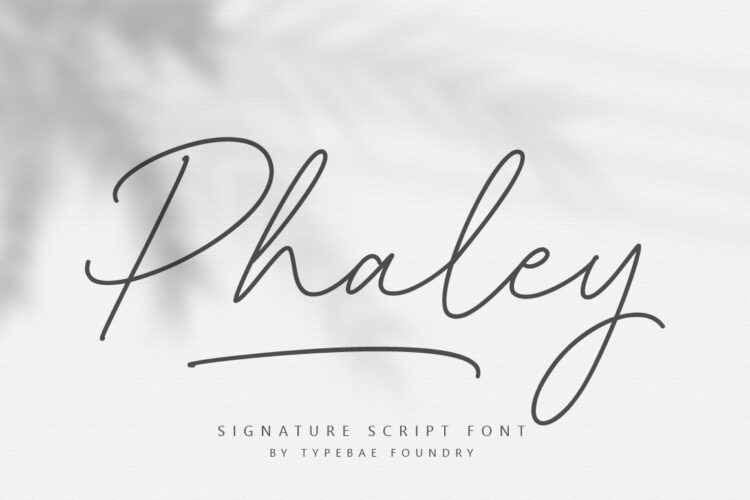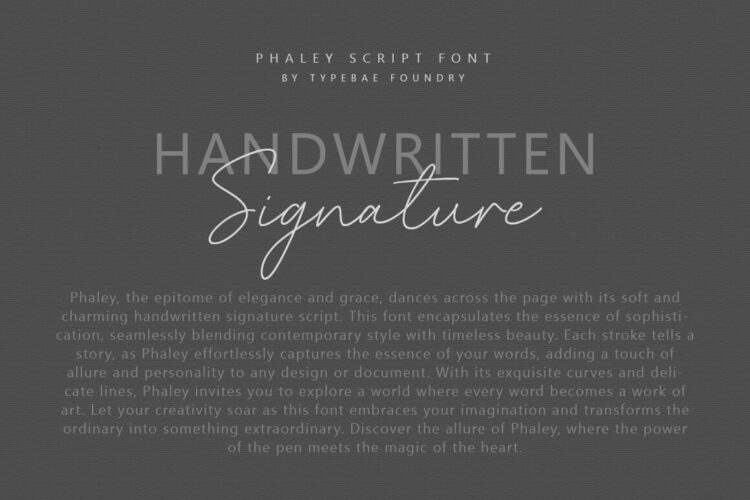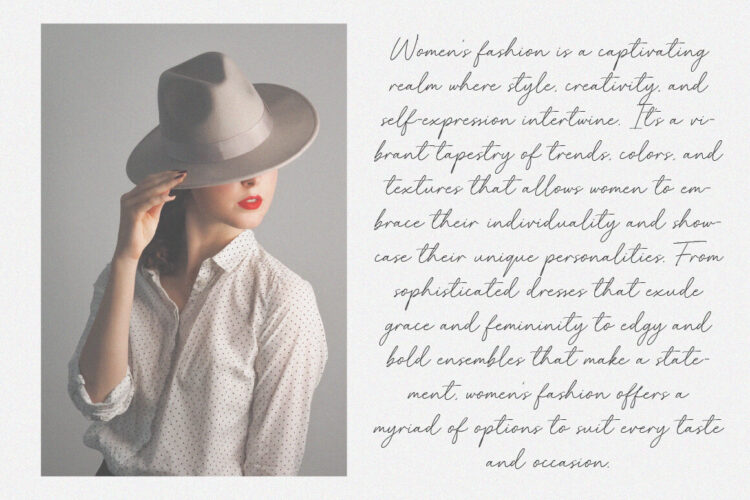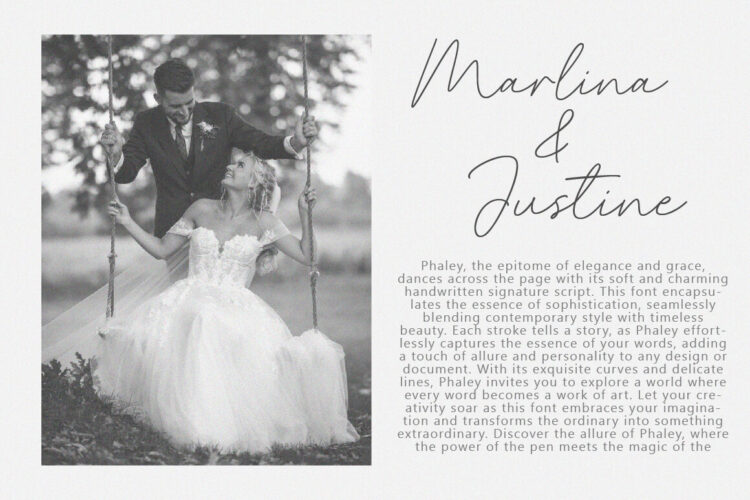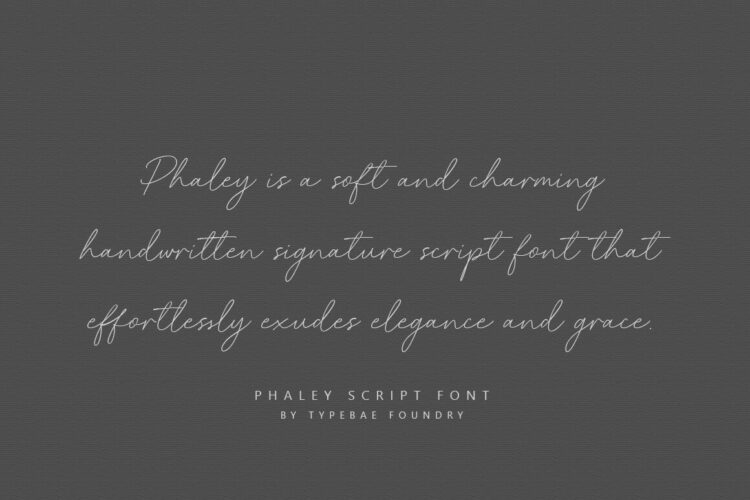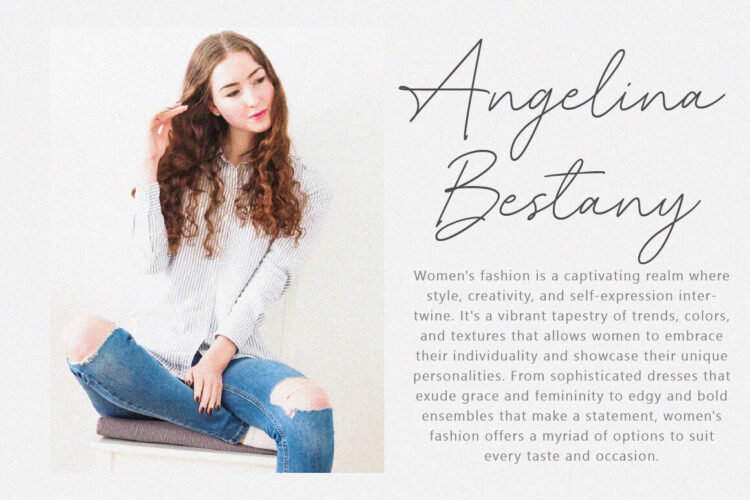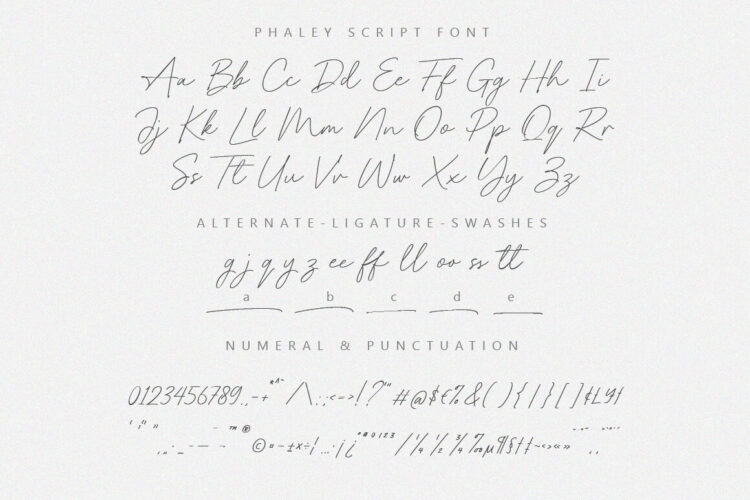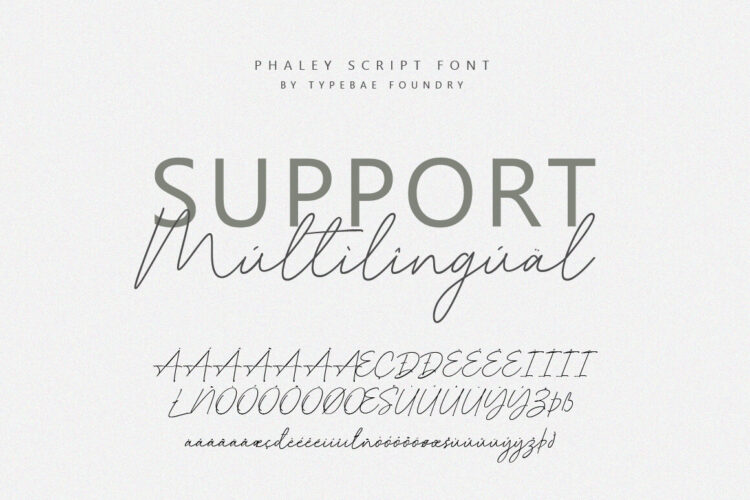
Phaley is a soft and charming handwritten signature script font that effortlessly exudes elegance and grace. With its delicate curves and timeless beauty, it adds a touch of allure and personality to any design or document, transforming words into works of art.
- Full alphabet and punctuation
- Alternate, ligature & swashes feature
- Multilingual Support